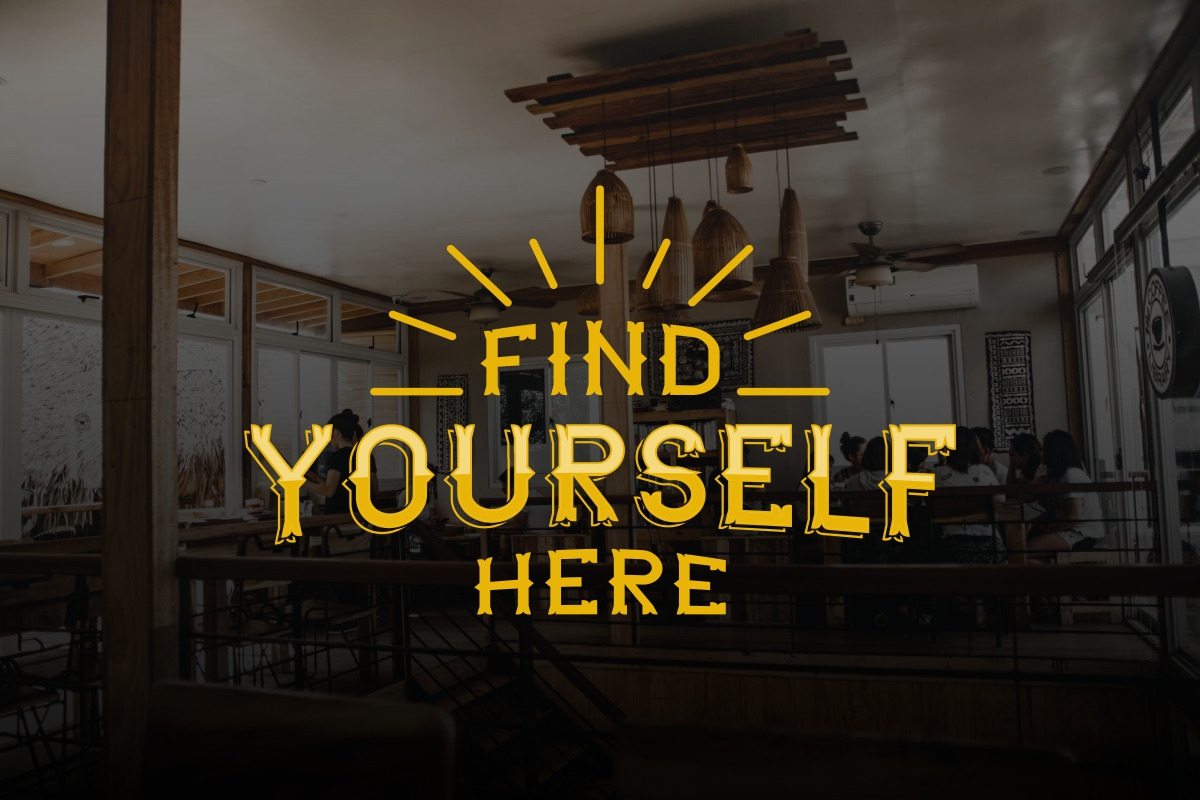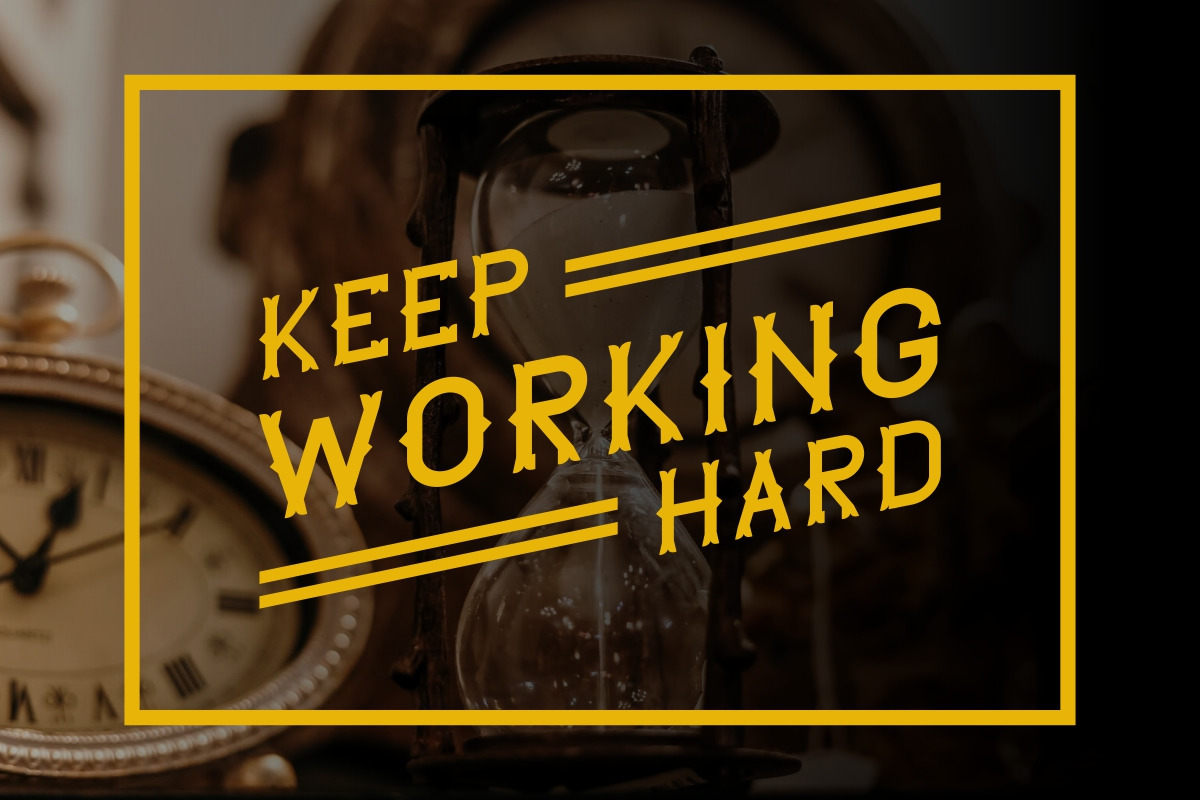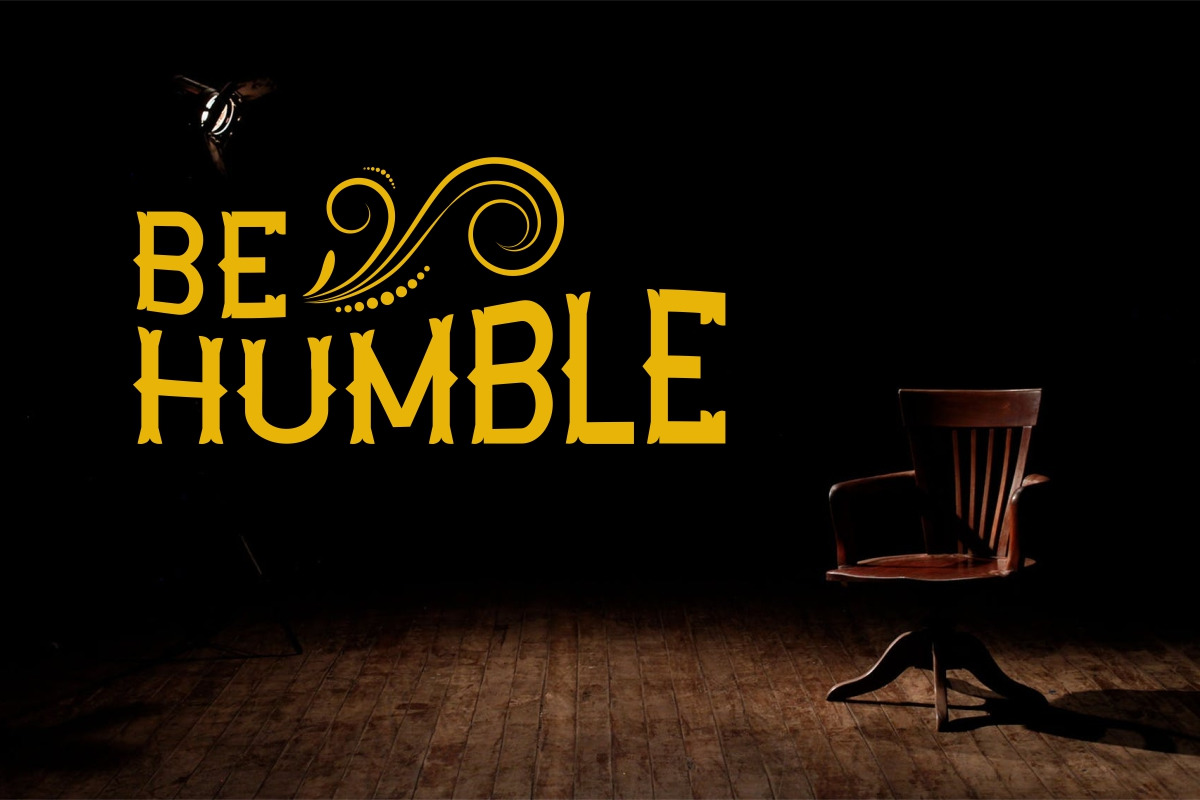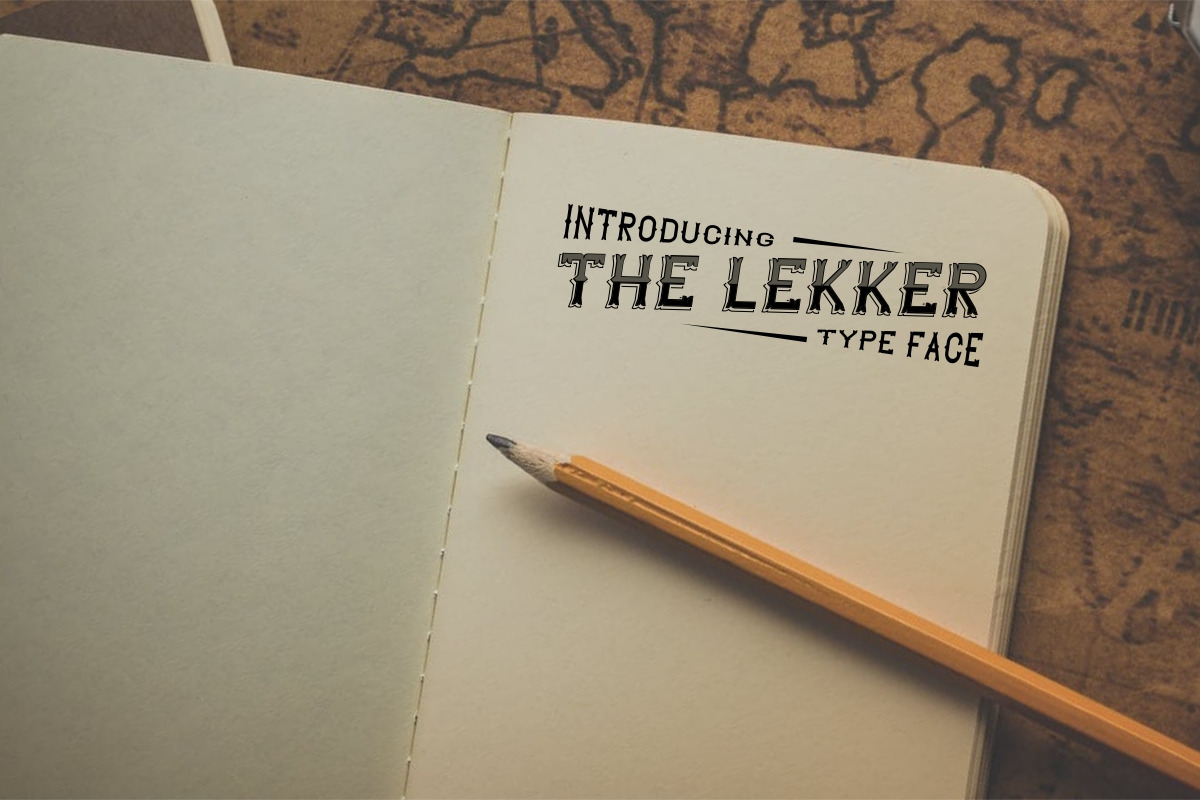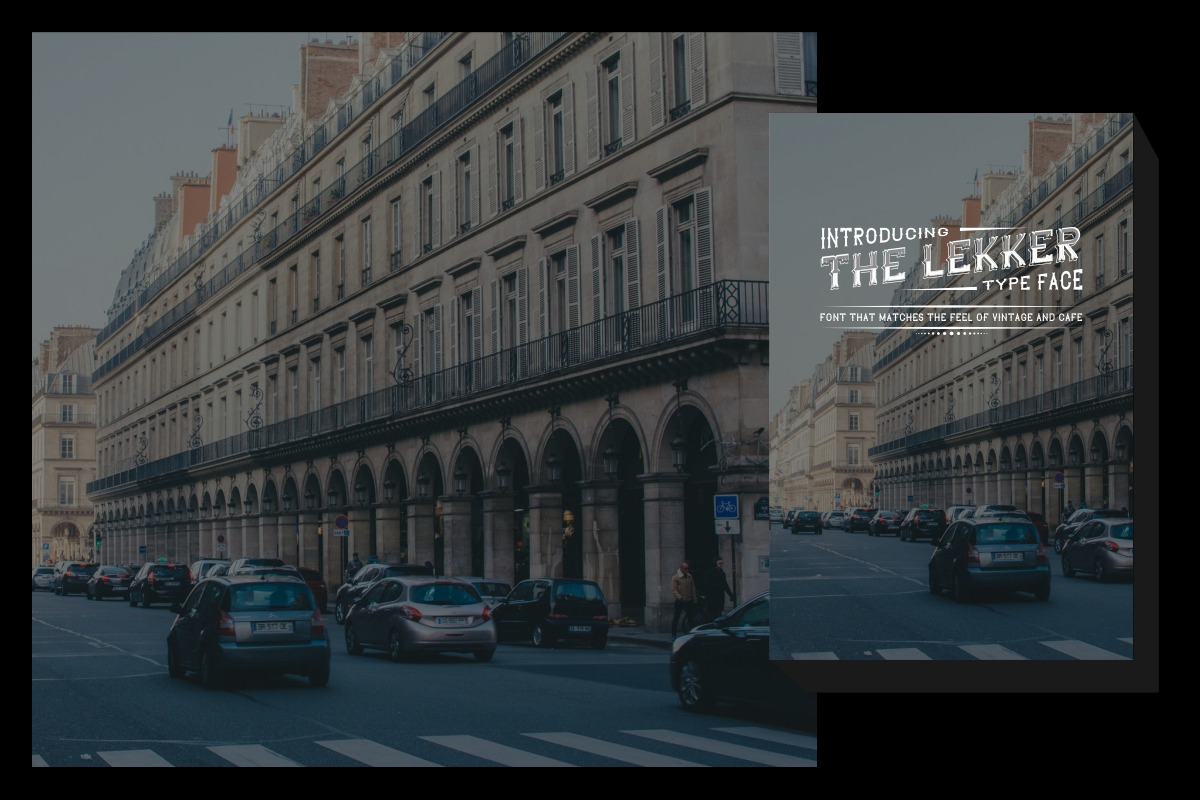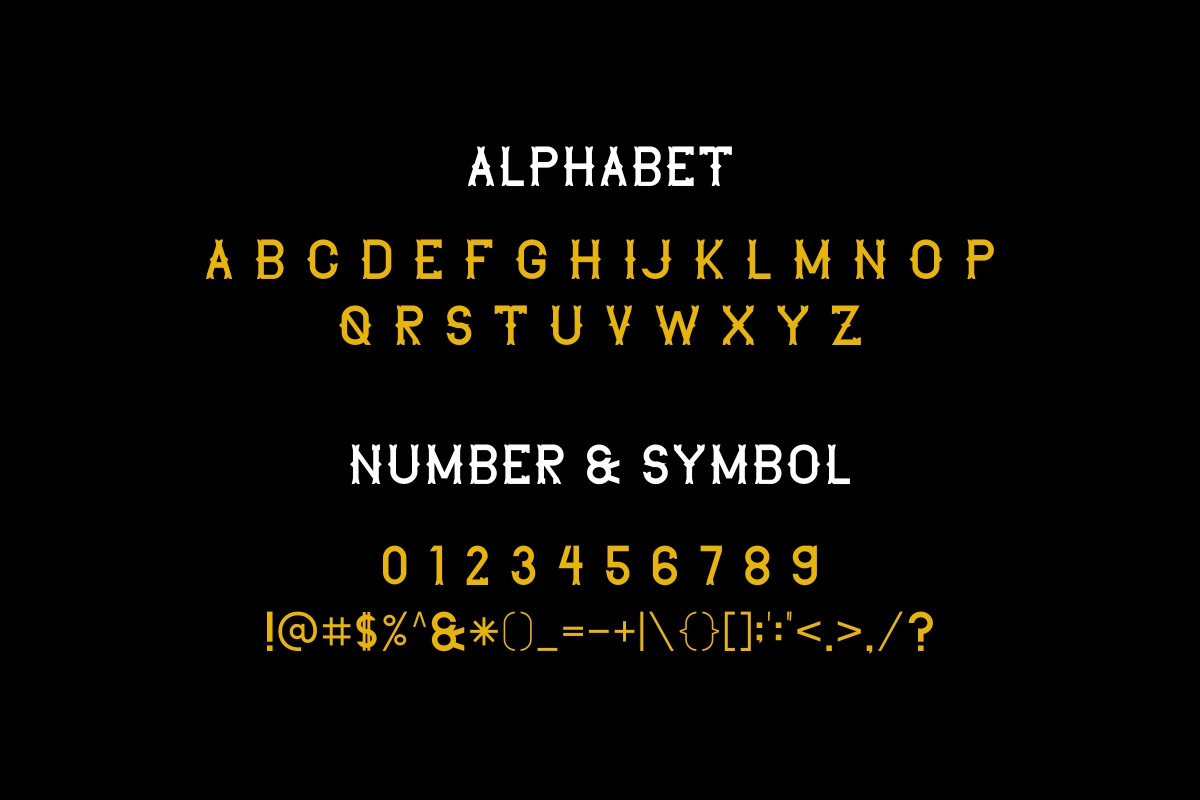
The Lekker Vintage Sans Font
Hi Guys, It’s us again :D Please meet : The Lekker Vintage Sans It’s a sans family font, but we better call it display font since it is better seen it as signage, header, banner, logo, stationery, letter head etc
The font will suit for cafe, music, restaurant etc as well as american country etc